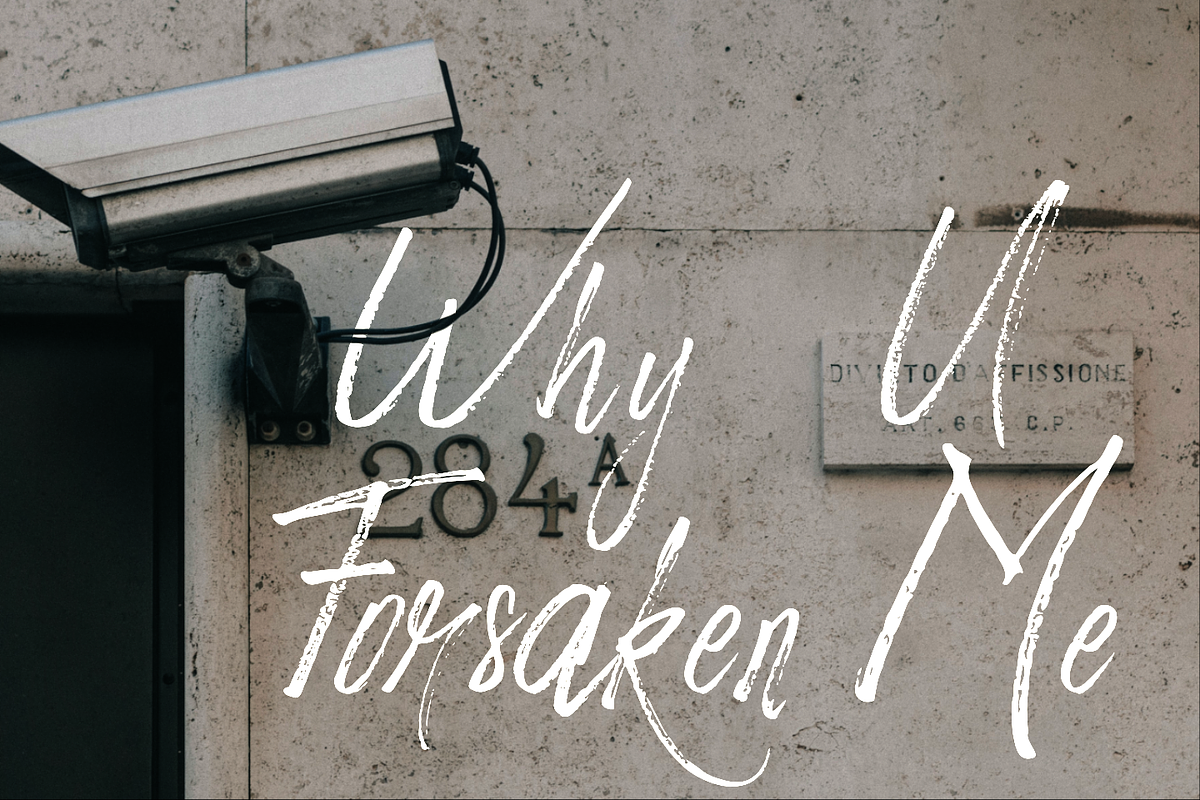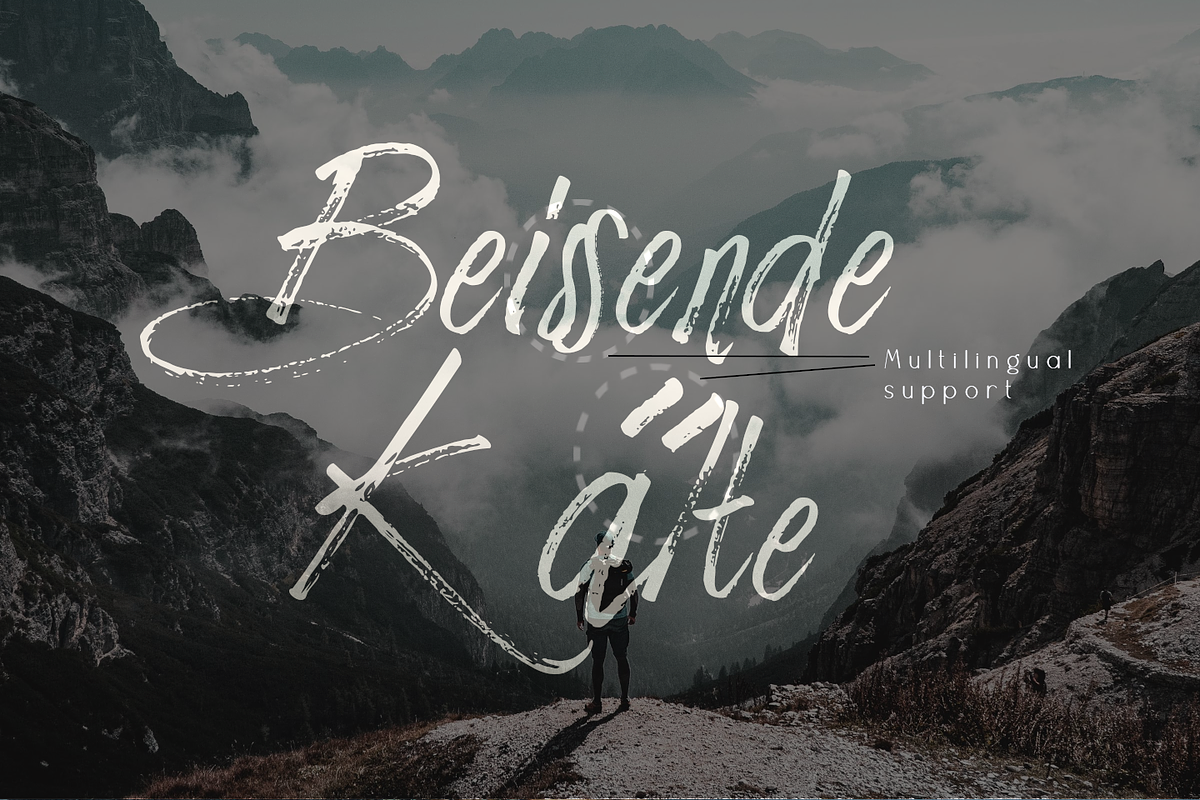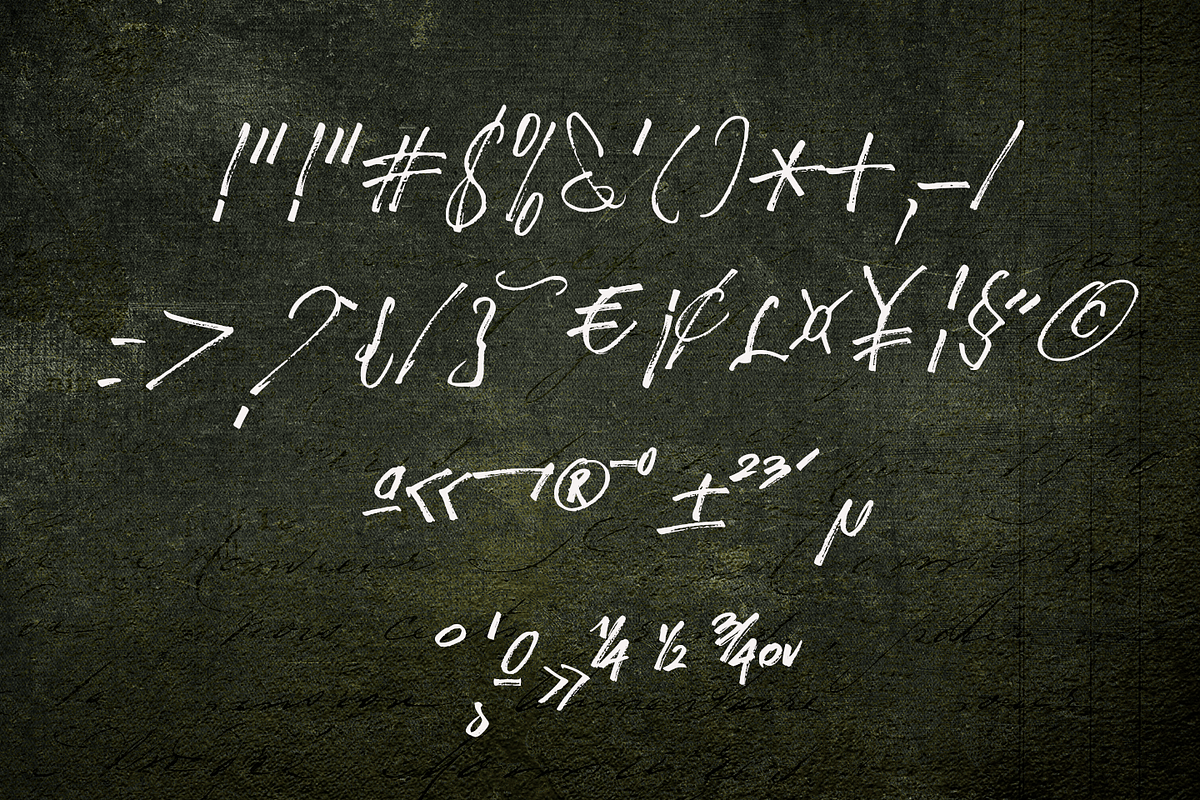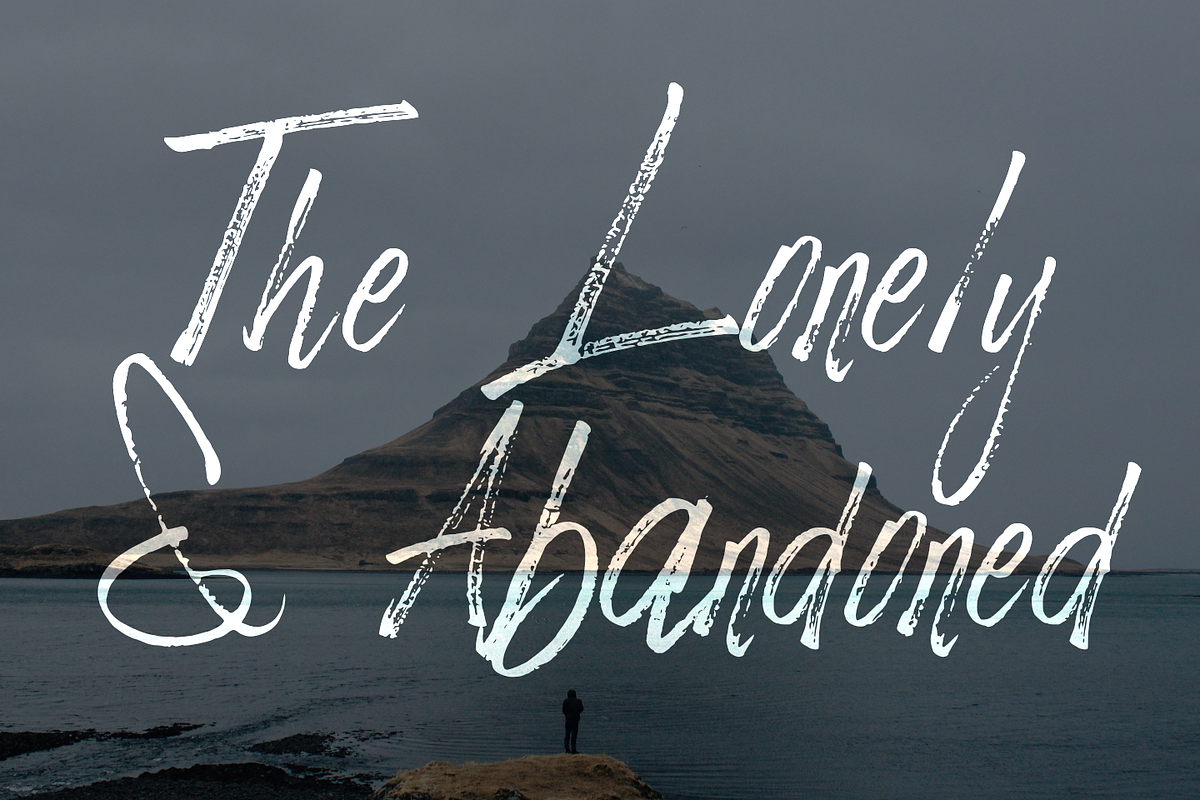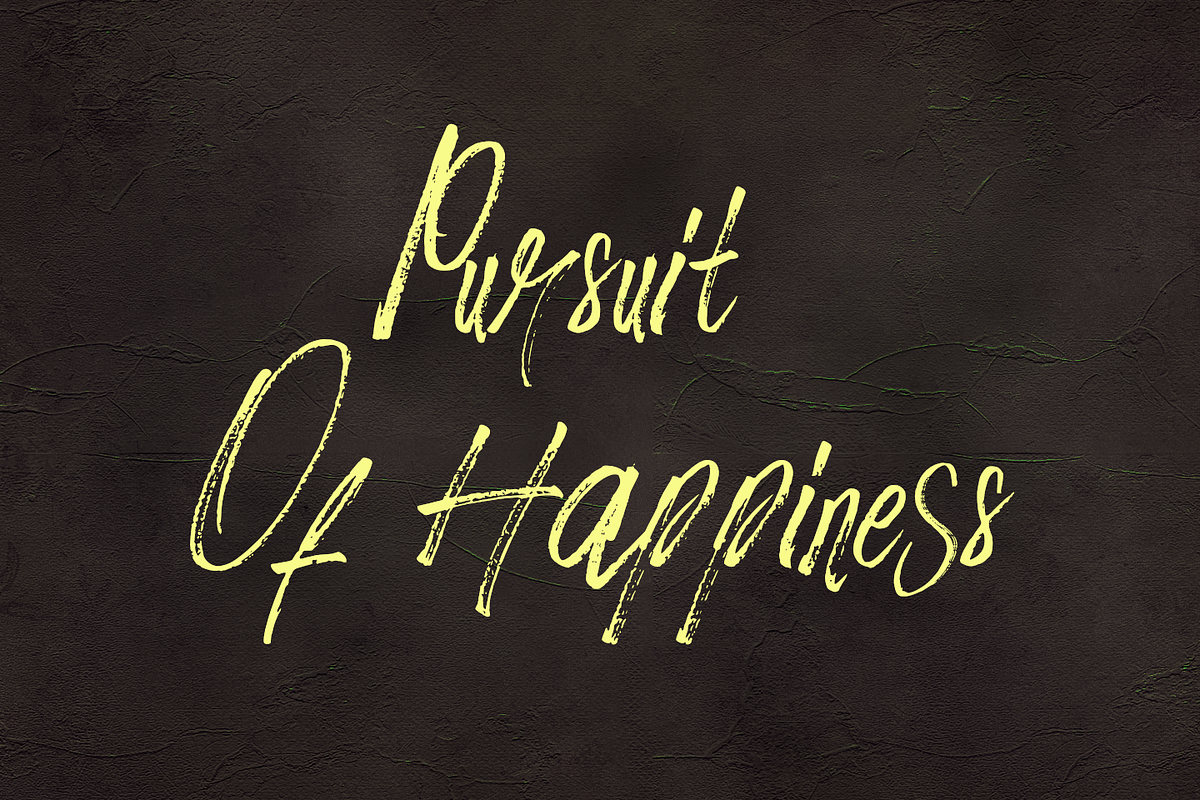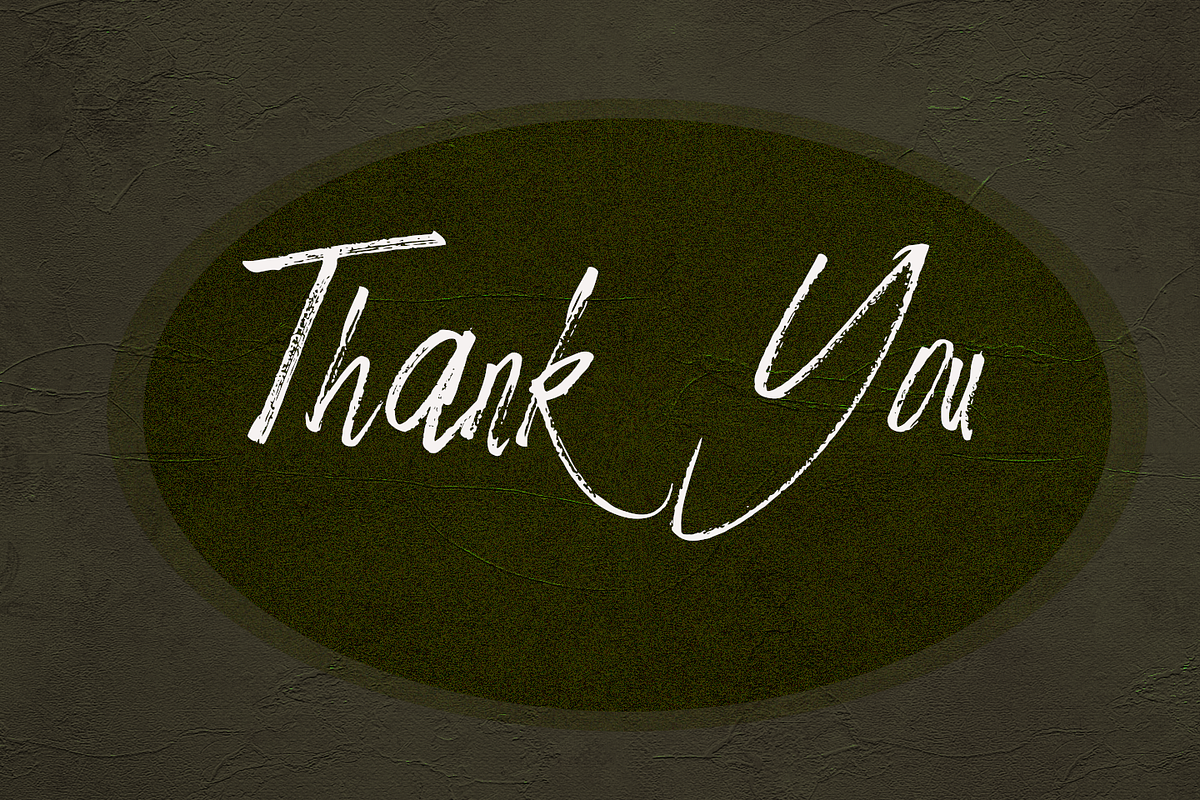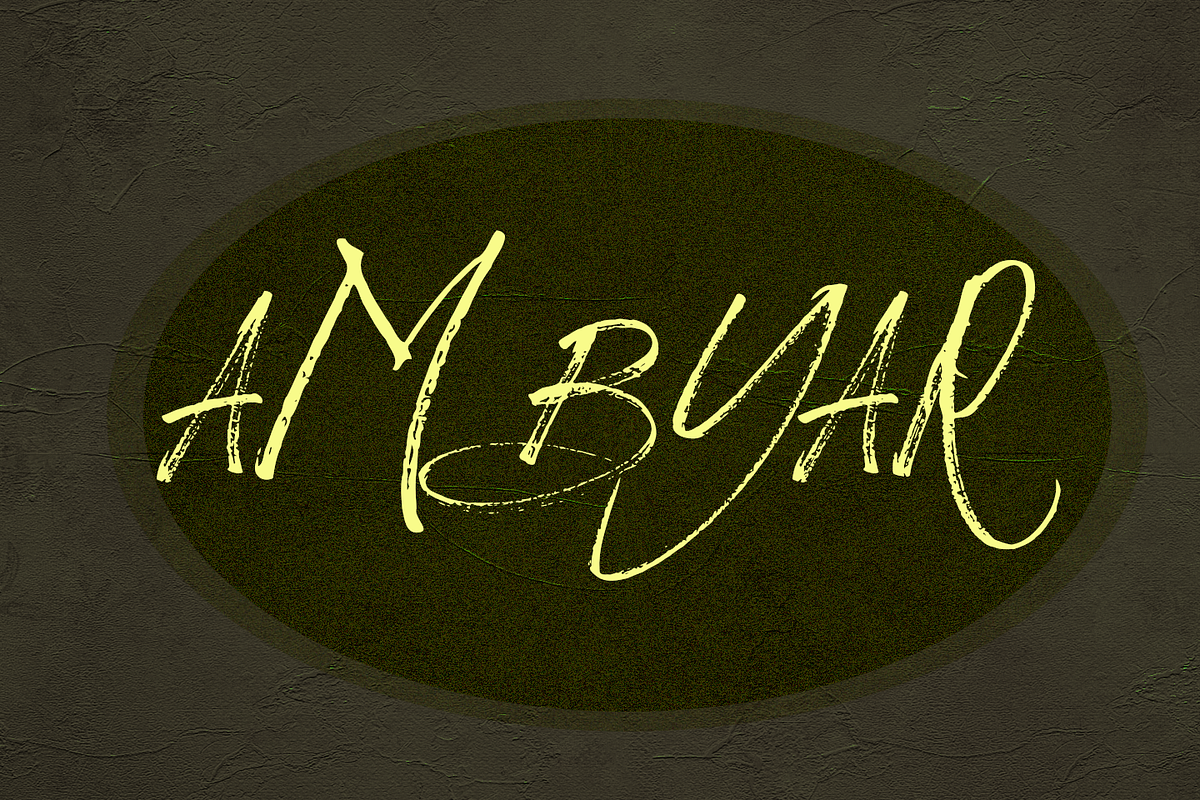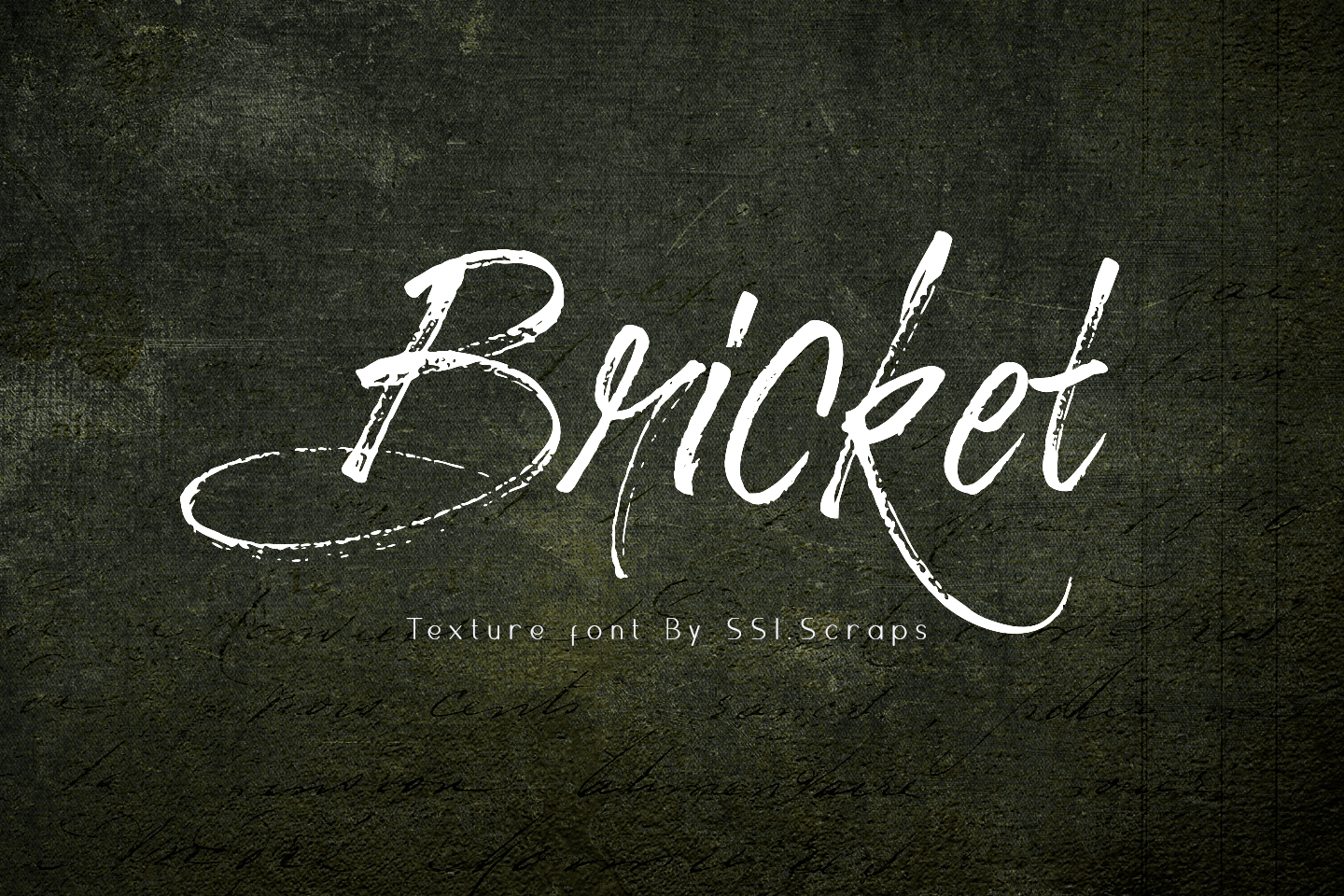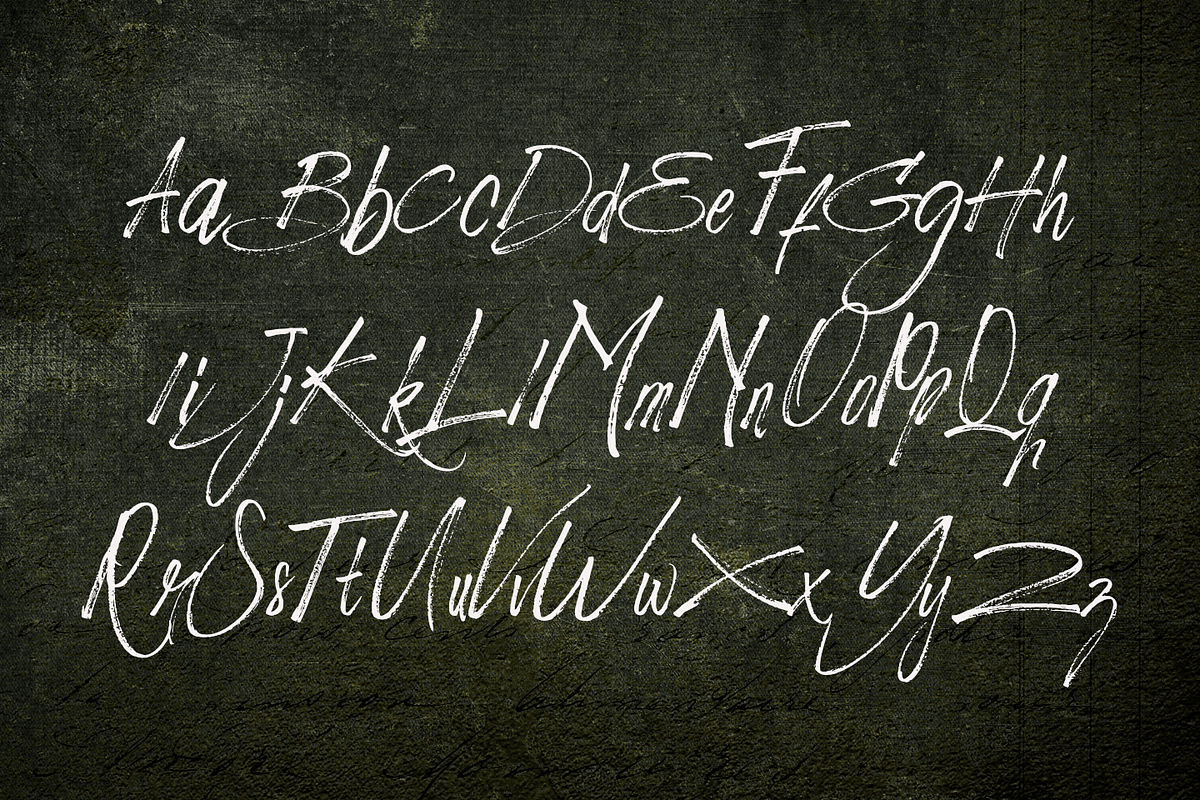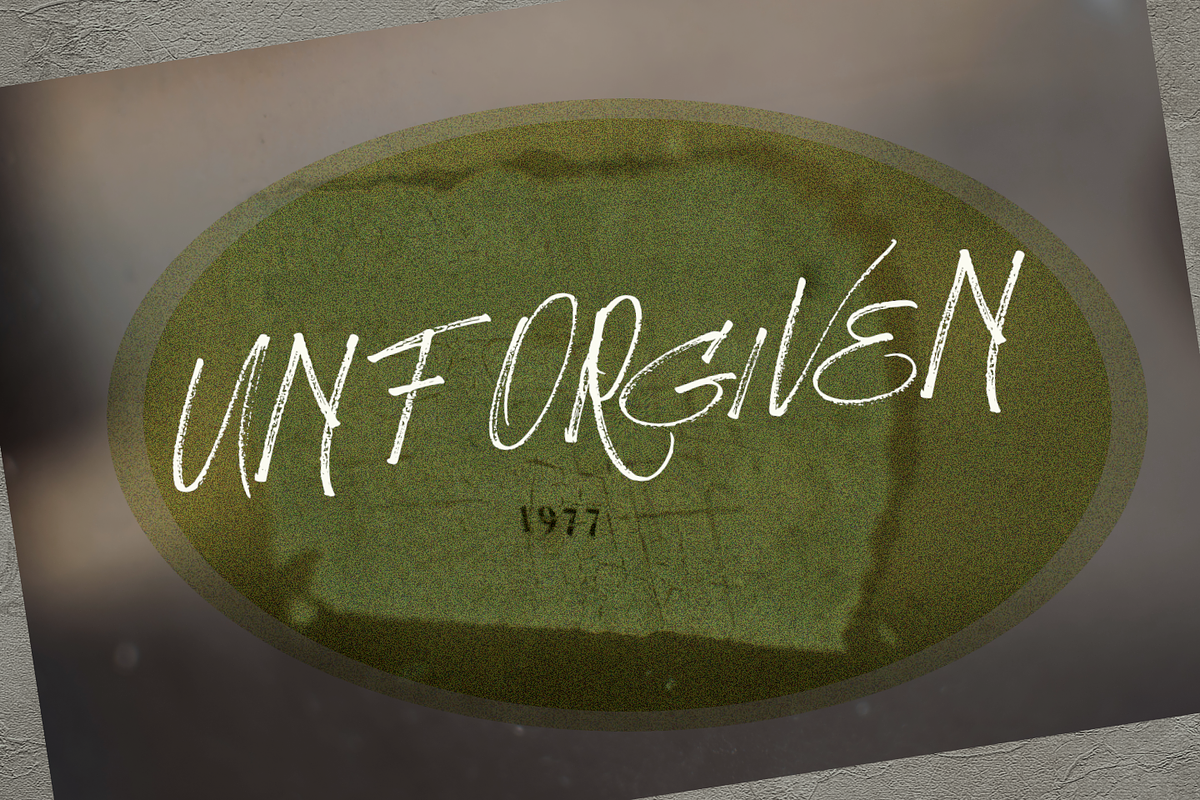
BRICKET brush font
BRICKET is modern brush font. It maintains its classy calligraphic influences while feeling contemporary and fresh. This versatility will appeal to a wide range of crafty ideas, from letterheads and titles to stationery.